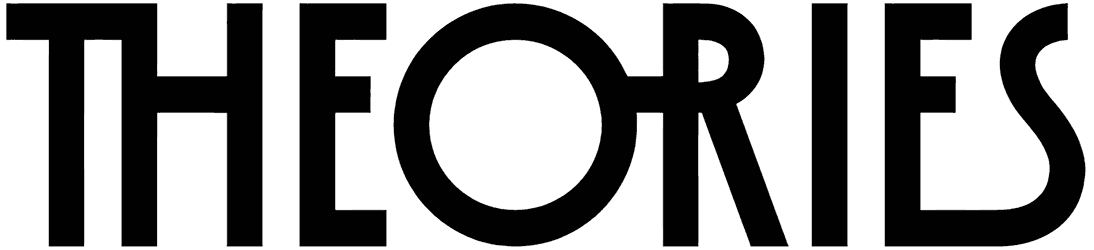
Theories Font
Want to make a clear yet fashionable typography design for your next procedure? If agreed, don’t skip this opportunity at all! Theories, sans serif font, can get the ball rolling in making your illustrations stand out.